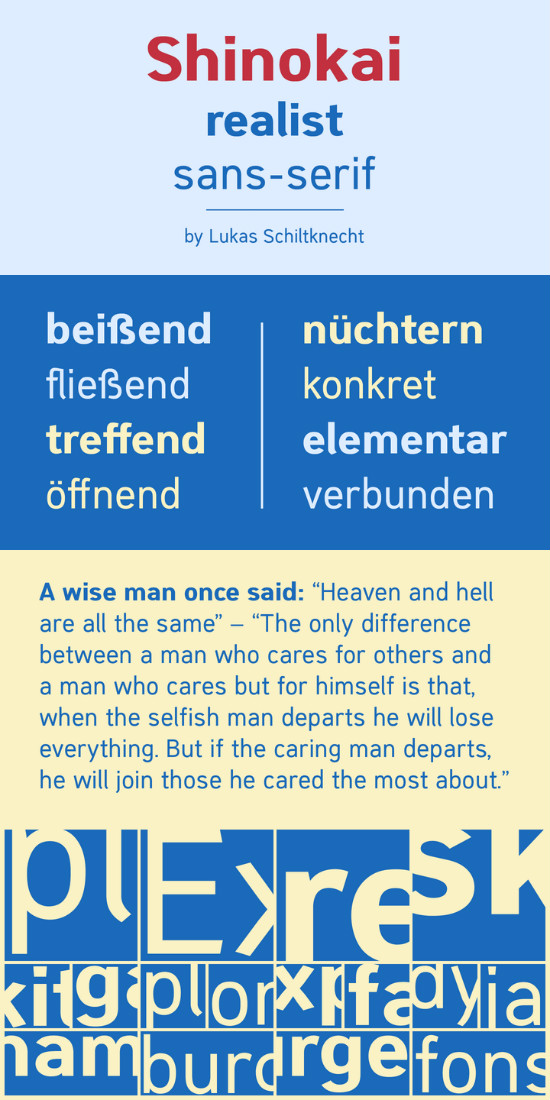
Shinokai Font
The Shinokai is a sans serif of two weights that is both dynamic and consequent. Originally concepted as a font for application letters by Lukas Schiltknecht it quickly became a more sophisticated piece of work. This Typeface is inspired by some of his favorite fonts the FF DIN and the ITC Officina.
It is made to suit a variety of uses like advertising and packaging, film and tv, editorial and publishing as well as posters and billboards.